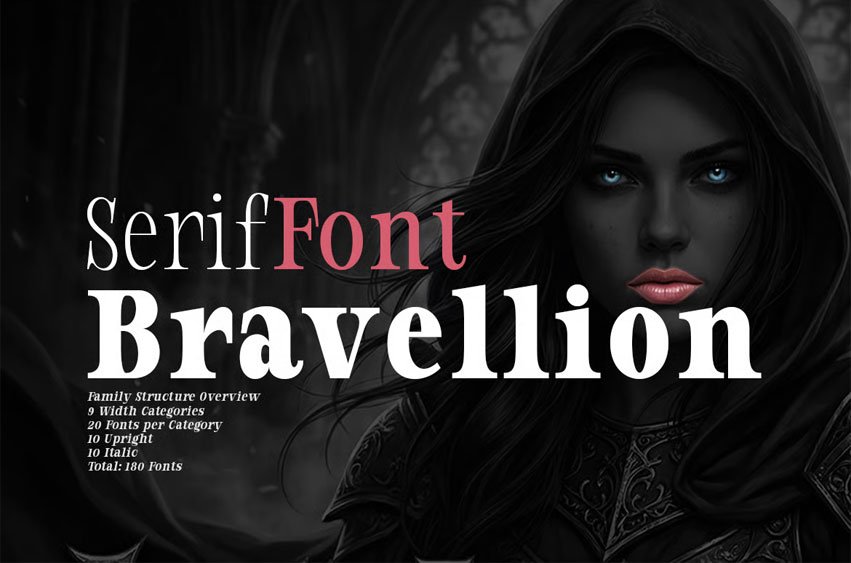
Bravellion Font is a refined contemporary serif superfamily designed for high–end editorial, luxury branding, and expressive typography. Built with precision contrast, sculpted serifs, and confident proportions, Vellmique balances classical elegance with modern clarity.
With 180 styles including upright and italic, Vellmique offers an extensive range from delicate Thin to commanding Black, across nine width categories — delivering maximum versatility for branding systems, publishing, packaging, and large–scale typography.
Its italic styles are true italics, carefully redrawn with fluid rhythm and subtle calligraphic movement, creating harmony between structure and expression.
Best for: Headlines, editorial mastheads, impactful branding, dramatic compositions.
Best for: Display typography, logo systems, packaging titles.
Best for: Sub-headlines, book covers, branding, structured layouts.
Best for: Editorial subtitles, identity systems, packaging.
Best for: Books, magazines, corporate branding, luxury communication.
Best for: Fashion branding, refined headlines, elegant packaging.
Expanded File Included: upright files Thin. TTF. OTF – ExtraLight. TTF. OTF – Extra Condensed. TTF. OTF – Medium. TTF. OTF – SemiBold. TTF. OTF – ExtraBold. TTF. OTF – Black. TTF. OTF – ExtraBlack. TTF. OTF Expanded styles emphasize horizontal presence and visual confidence. With generous spacing and proportion, this width brings a cinematic and luxurious impression.
Best for: High-end branding, large-scale typography, premium advertising.
Extra Expanded File Included: upright files Thin. TTF. OTF – ExtraLight. TTF. OTF – Extra Condensed. TTF. OTF – Medium. TTF. OTF – SemiBold. TTF. OTF – ExtraBold. TTF. OTF – Black. TTF. OTF – ExtraBlack. TTF. OTF Extra Expanded delivers striking visual drama with wide proportions and strong personality. It is expressive and contemporary, ideal for distinctive identity systems.
Best for: Statement headlines, luxury logos, artistic layouts.
Ultra Expanded File Included: upright files Thin. TTF. OTF – ExtraLight. TTF. OTF – Extra Condensed. TTF. OTF – Medium. TTF. OTF – SemiBold. TTF. OTF – ExtraBold. TTF. OTF – Black. TTF. OTF – ExtraBlack. TTF. OTF Ultra Expanded is the most expressive and spatially generous width in the Vellmique family. Designed for bold creative direction, it creates monumental typography with unmistakable presence.
Best for: Hero typography, large format design, fashion campaigns, experimental layouts.